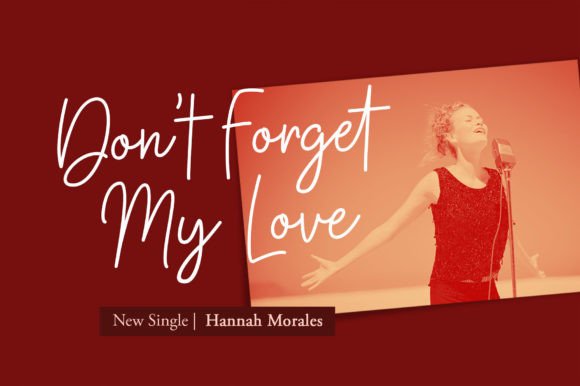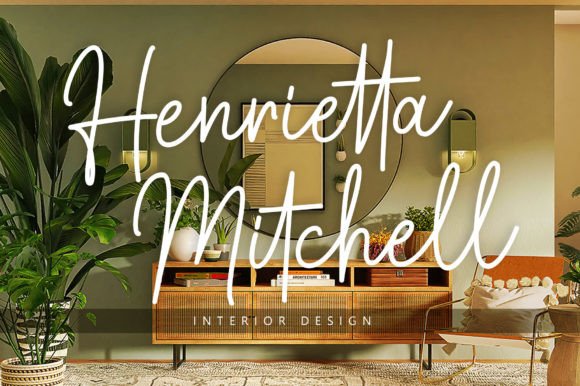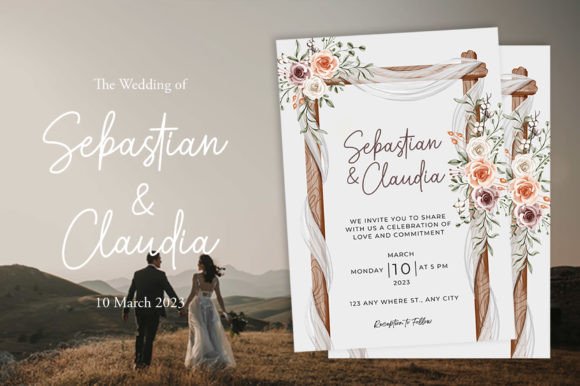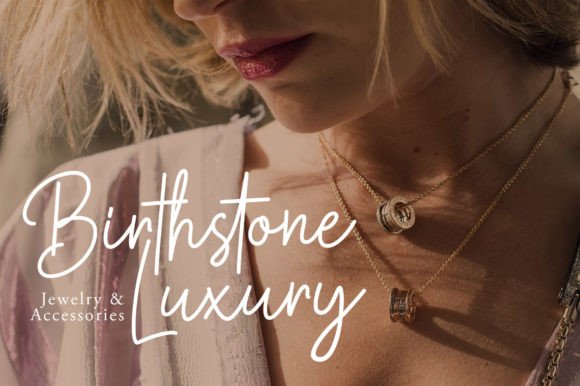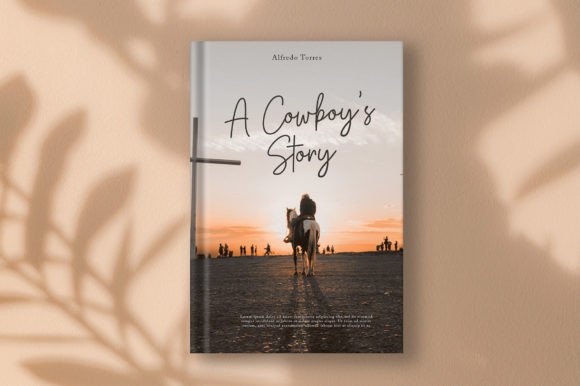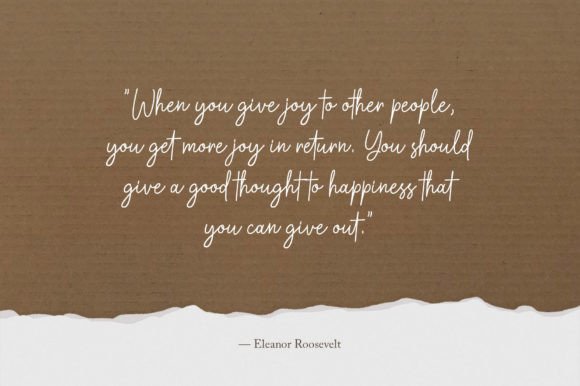
Introduction to Restday Signature Script Font
Introducing the new handwritten signature script font called Restday.
With unique monoline, fast hand sweep style for your daily and project needs ex: logo, fashion, apparel, photography, watermark, quotes, signature, poster, wedding, invitation, stationery, branding, letter, etc This font is PUA encoded which means you can access all glyphs and swashes effortlessly.